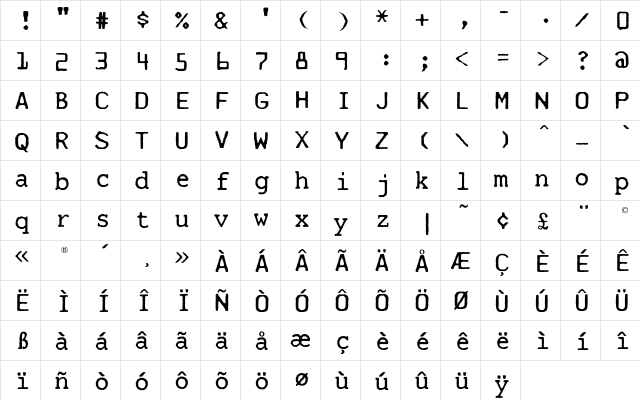
Mainframe-RD Two Lino Regular
Design Context for Mainframe-RD Two Lino Typeface
Mainframe-RD Two Lino is a composed and adaptable typeface that performs quietly and consistently across a wide range of design contexts.
Pro Tip: Use Mainframe-RD Two Lino in both headline and body roles to test its range before committing to a single application.